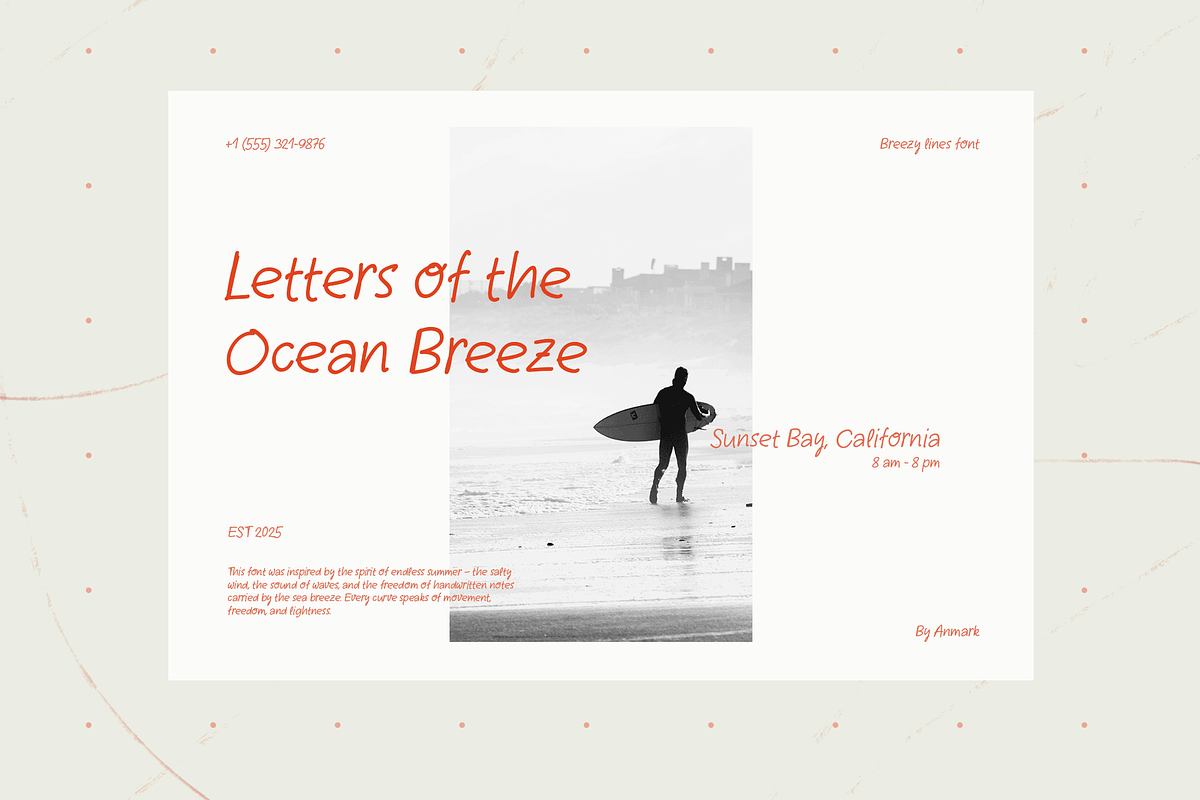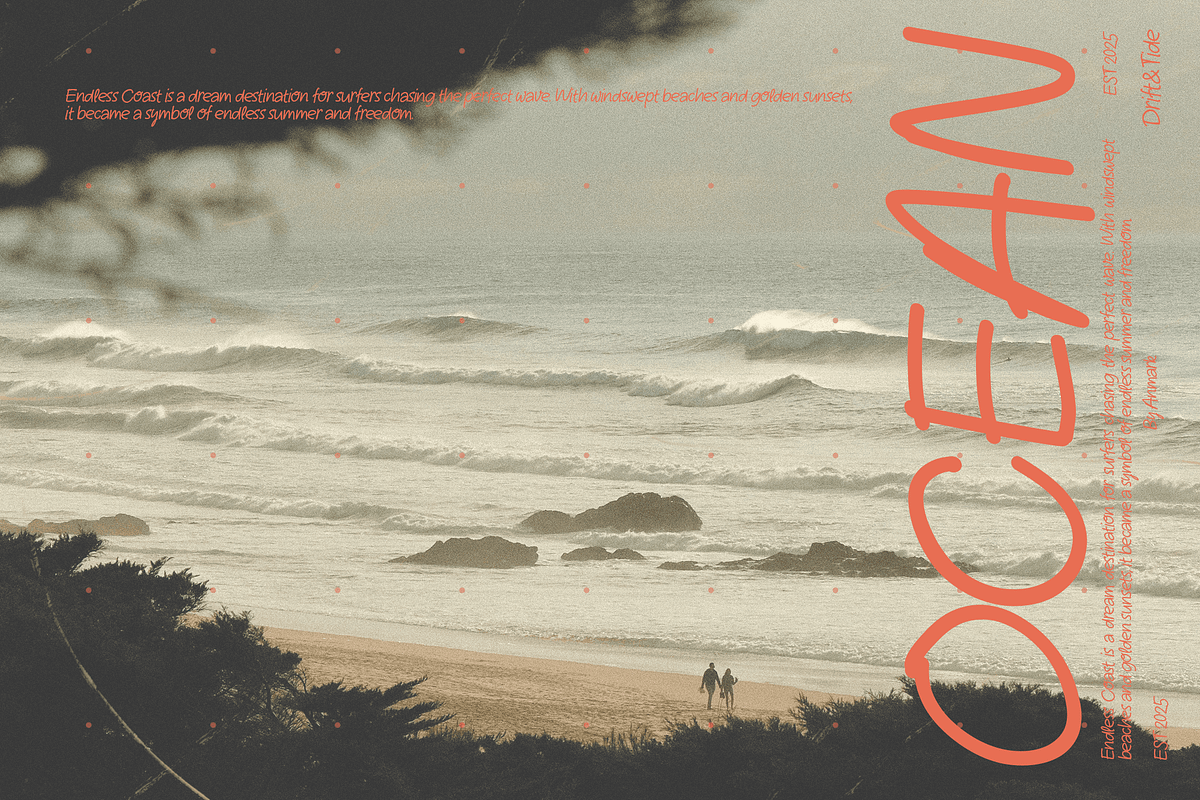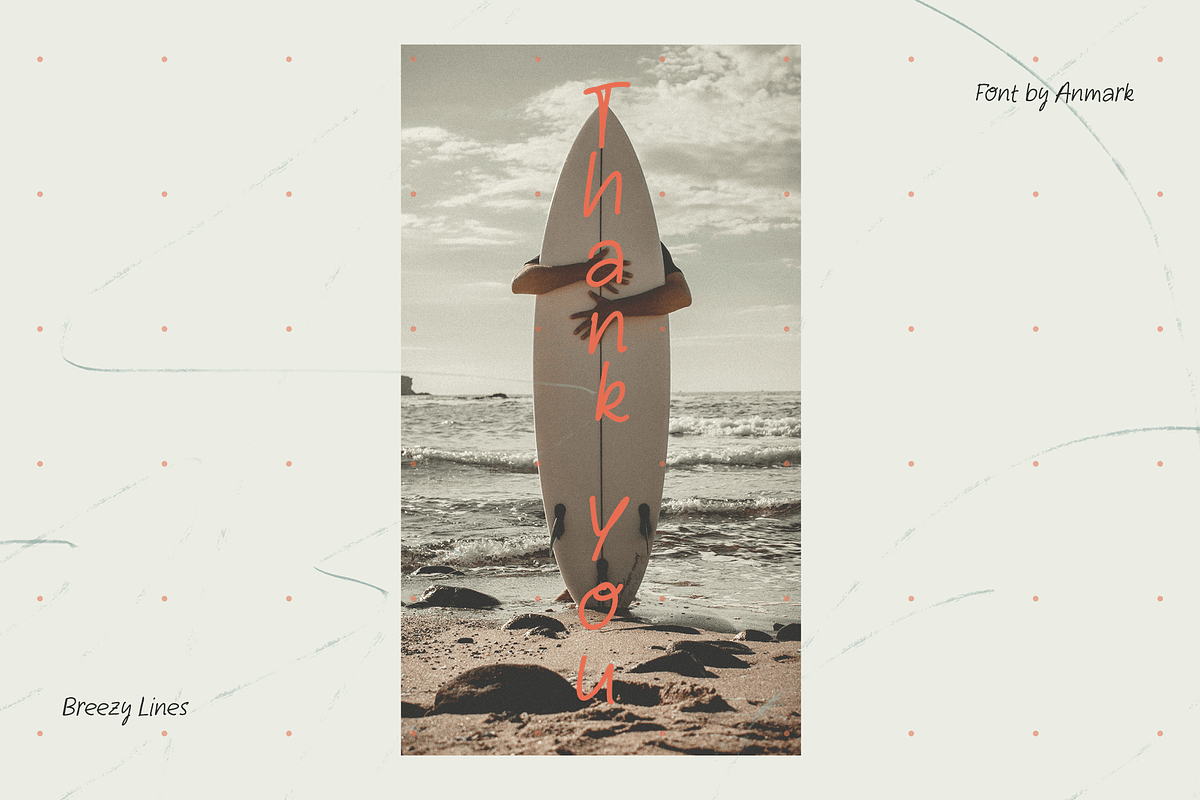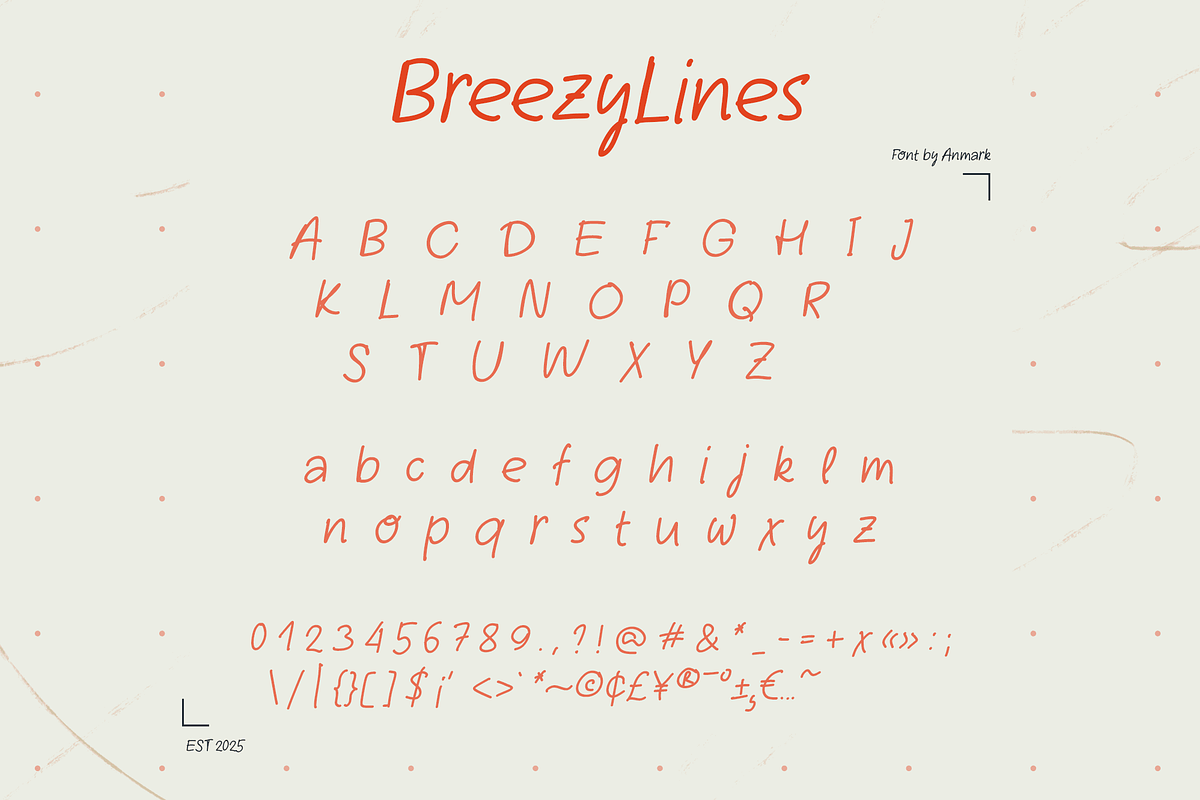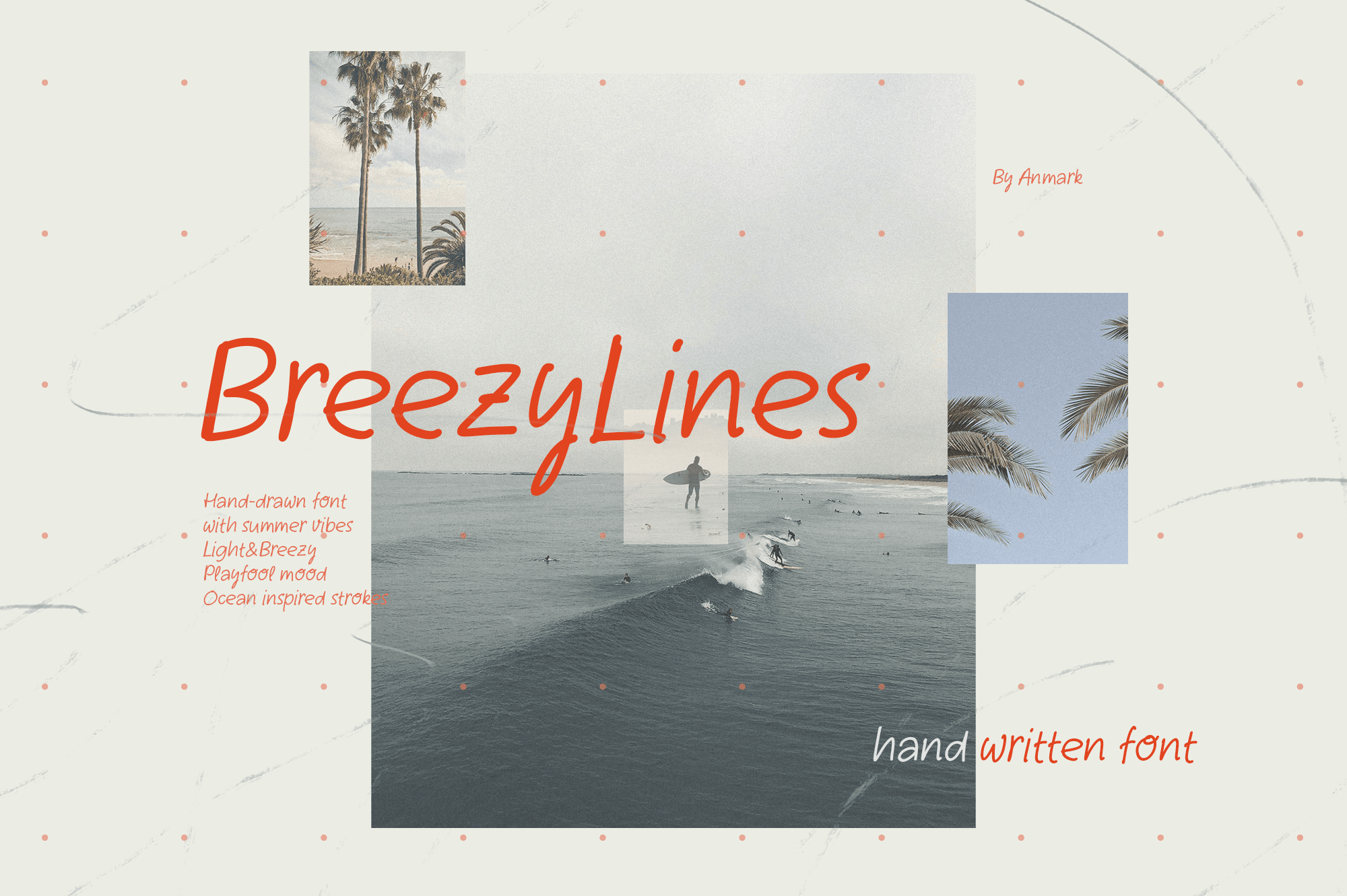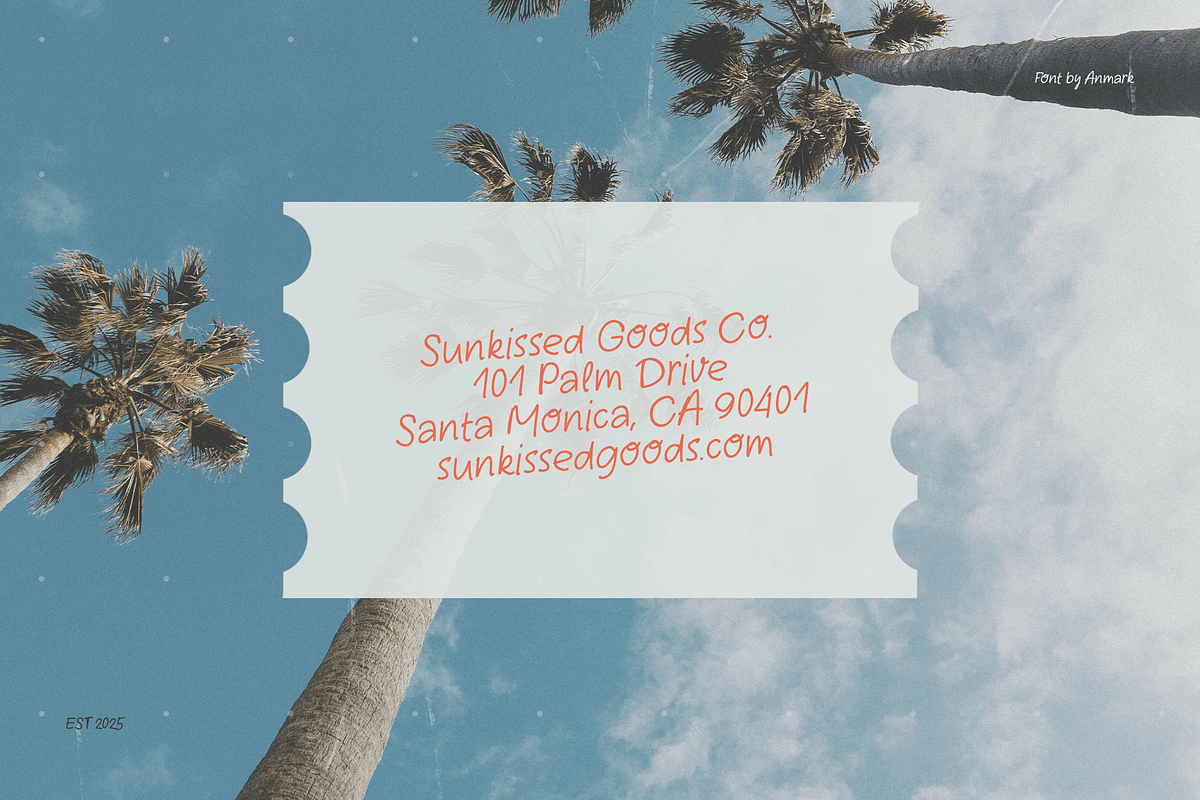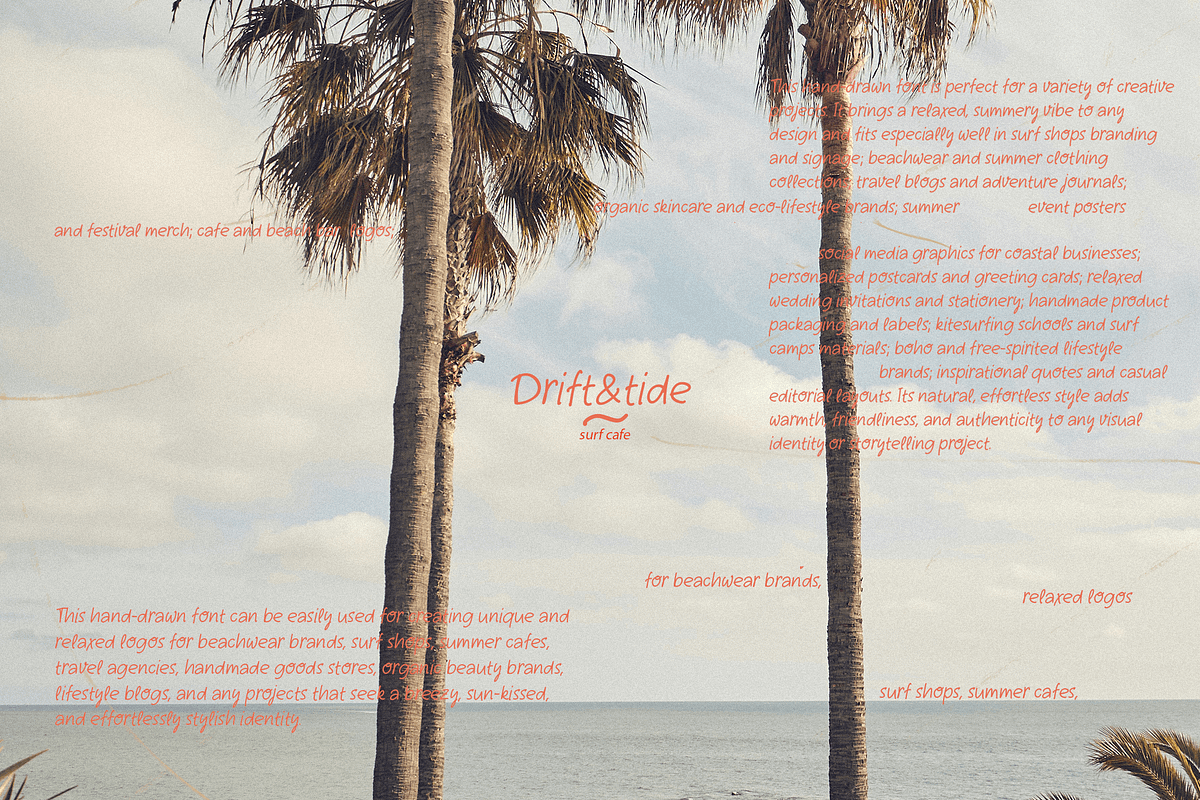
Breezy Lines Handwritten Summer Font
Breezy Lines is a hand-drawn font inspired by the carefree spirit of summer, ocean breezes, and sun-drenched days. Its light, flowing strokes bring a sense of warmth, spontaneity, and effortless charm to any design.
Perfect for summer posters, boho wedding invitations, beachwear collections, travel blogs, social media graphics, greeting cards, café branding by the sea, and any creative project that calls for a relaxed and sunny vibe.
BreezyLines adds a playful, breezy touch to your designs, making them feel vibrant, fresh, and full of life - just like a perfect summer day.